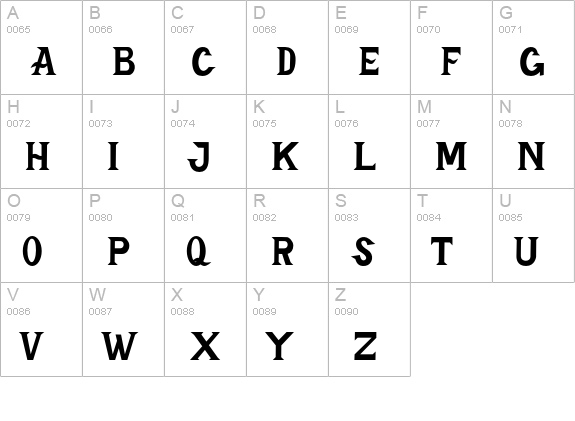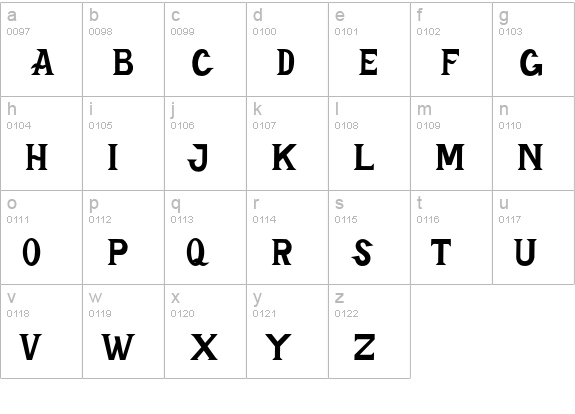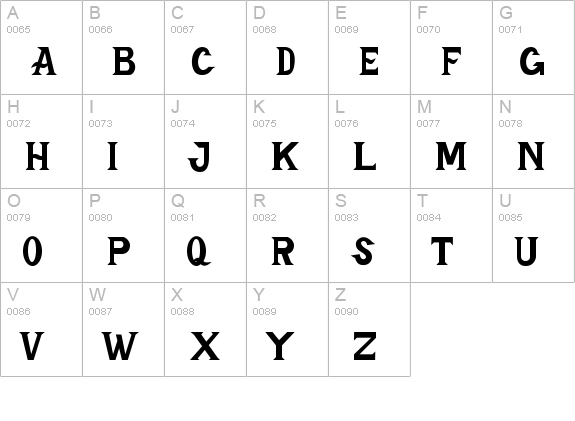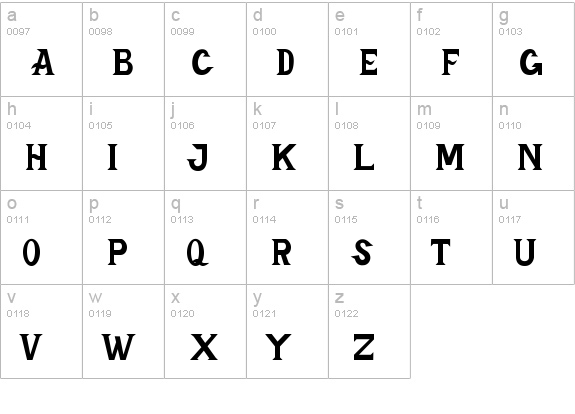
Heidar font is a modern and stylish typeface that exudes elegance and sophistication. With its clean lines and sleek design, Heidar is perfect for a wide range of design projects, from branding to editorial design. This versatile font can be used for both headlines and body text, making it a great choice for any design project.